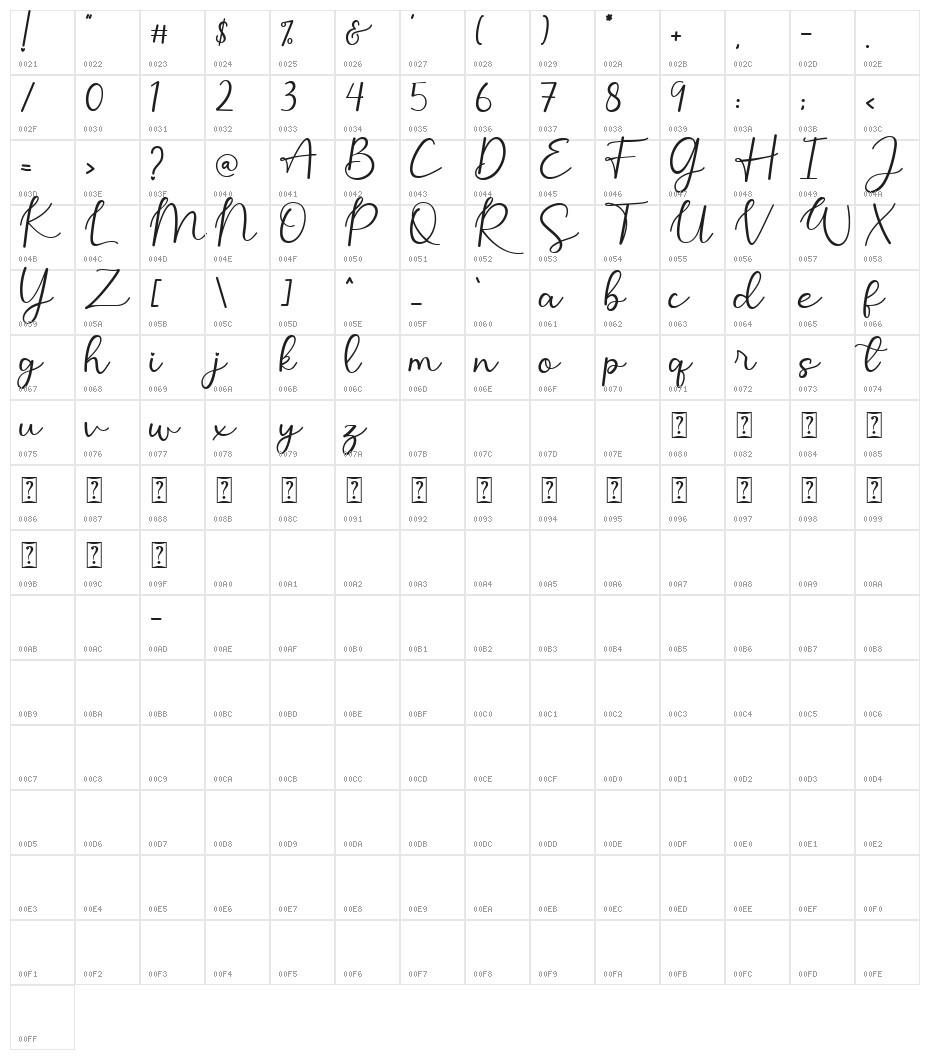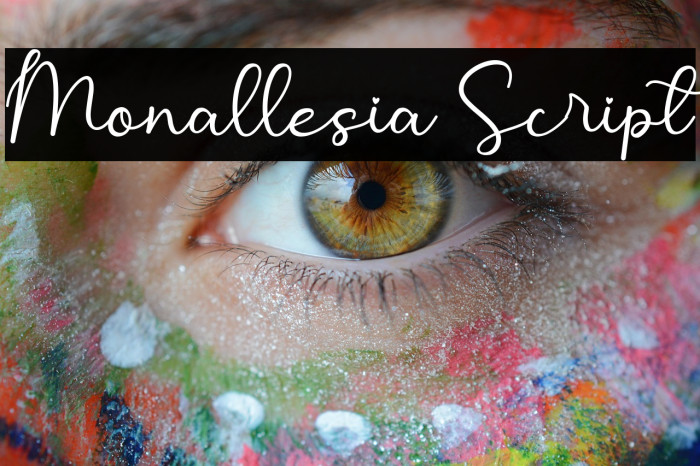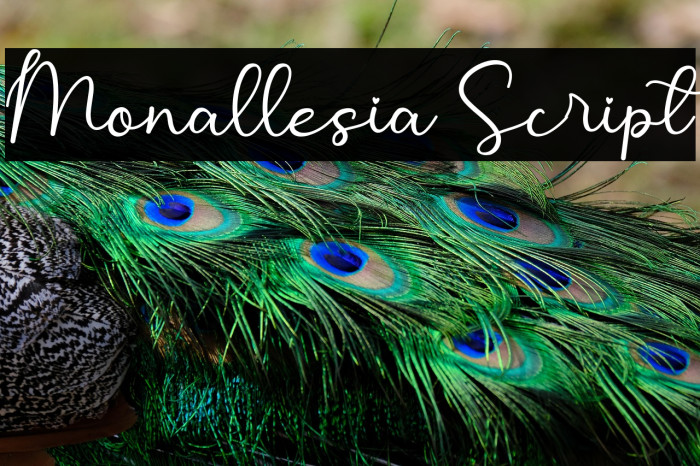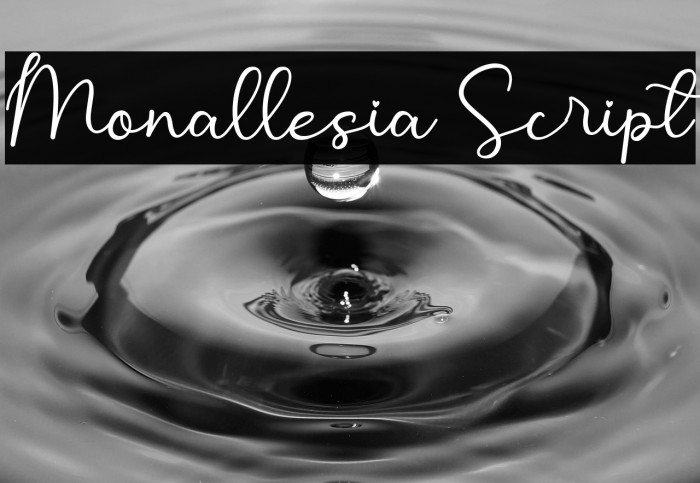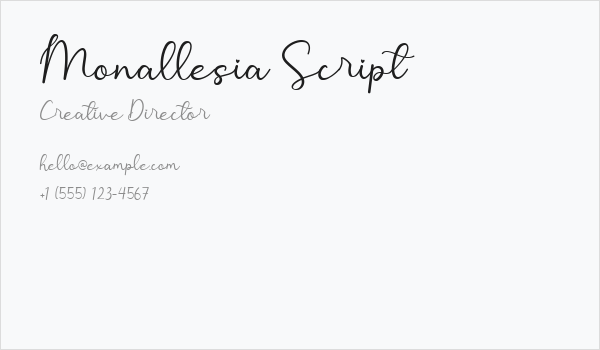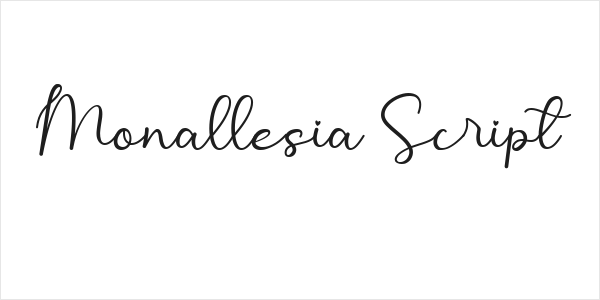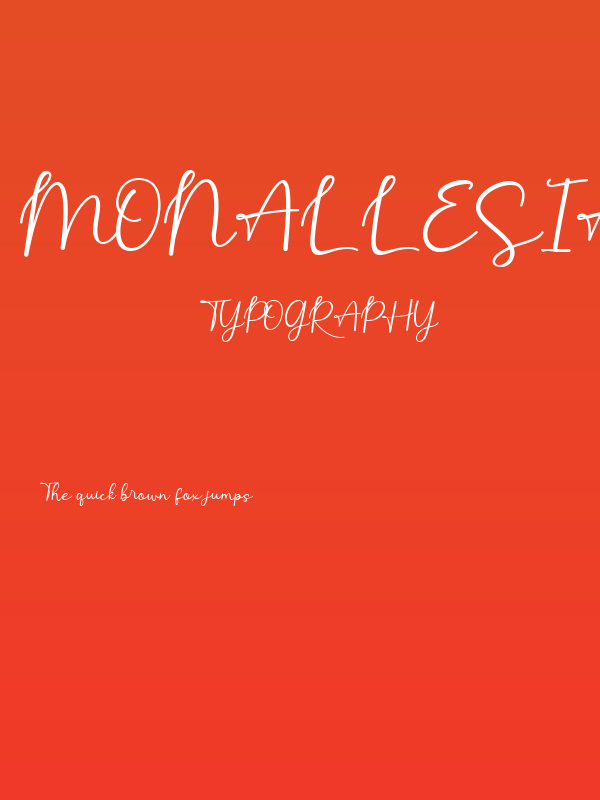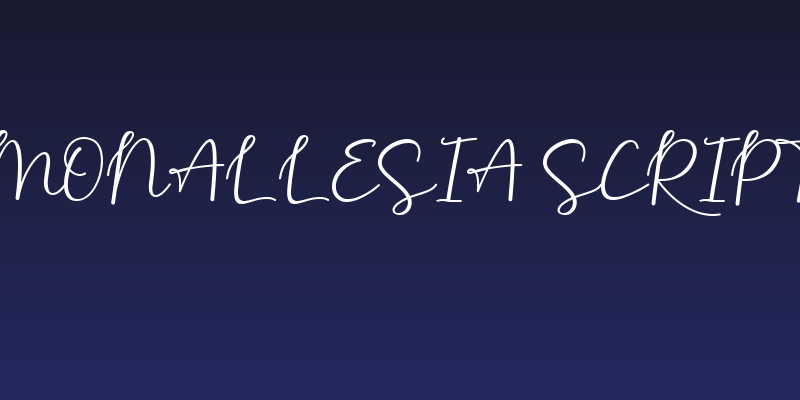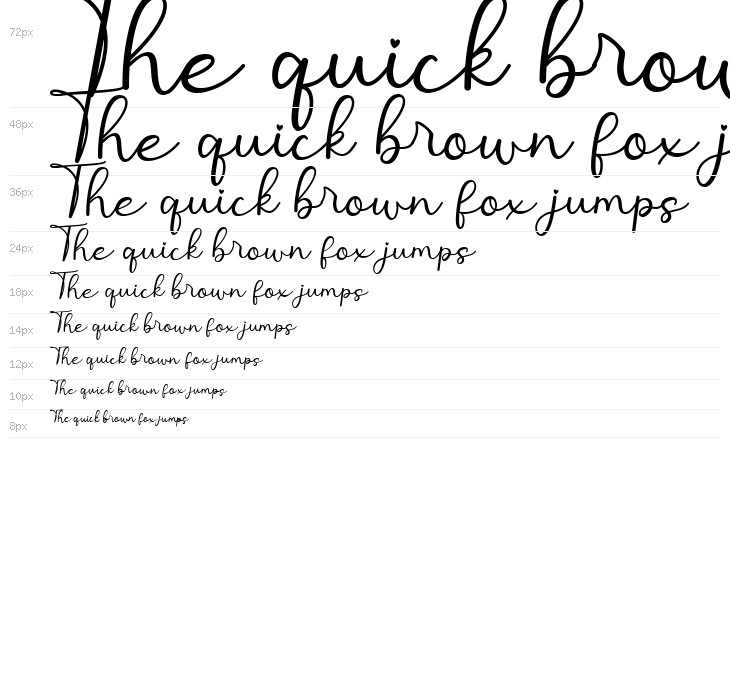
Monallesia Script Font
Monallesia Script Description
This elegant script font features a flowing, cursive style that exudes sophistication and grace. The characters are interconnected with smooth, sweeping lines, creating a sense of fluidity and movement. The uppercase letters are slightly more ornate, with delicate loops and flourishes, while the lowercase letters maintain a consistent, rounded form. The numerals and special characters are designed to complement the overall aesthetic, ensuring a cohesive look. This font is perfect for projects that require a touch of elegance and charm.
| Overall Style | Elegant |
| Use Case | Logos, Invitations, Decorative text |
| Proposed Projects | Ideal for wedding invitations, greeting cards, branding, and elegant logo designs. |